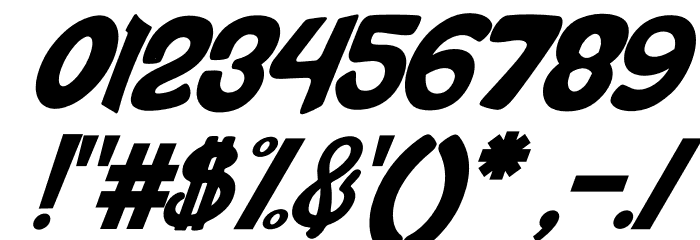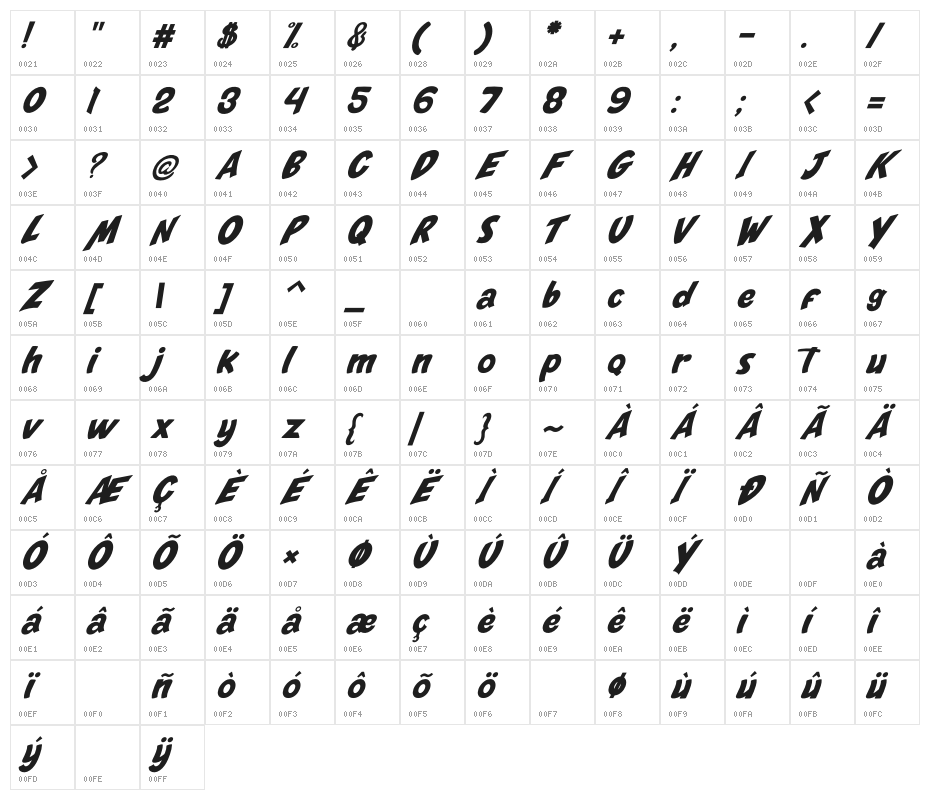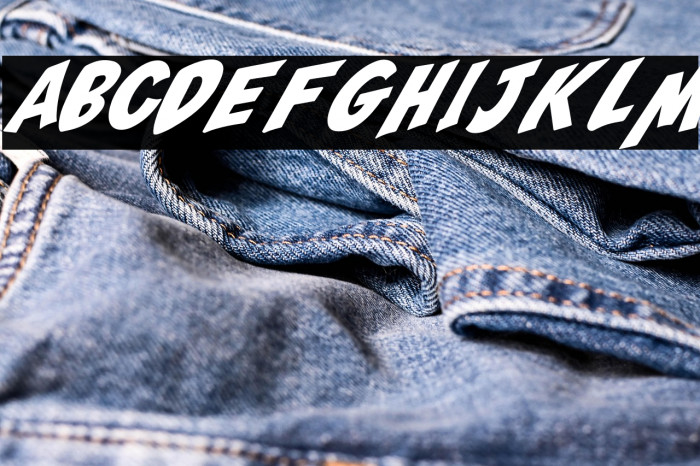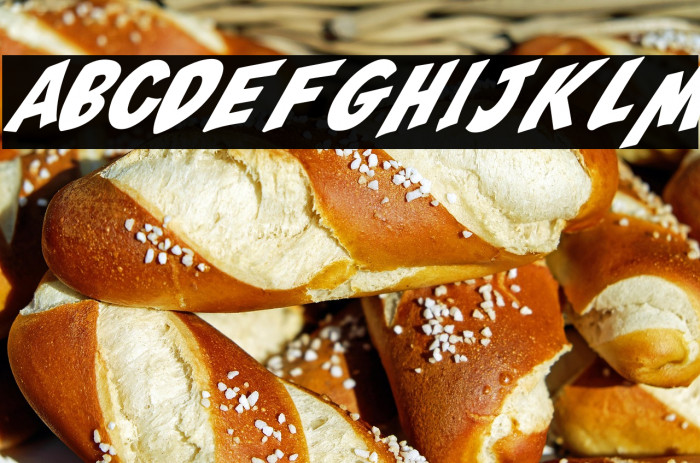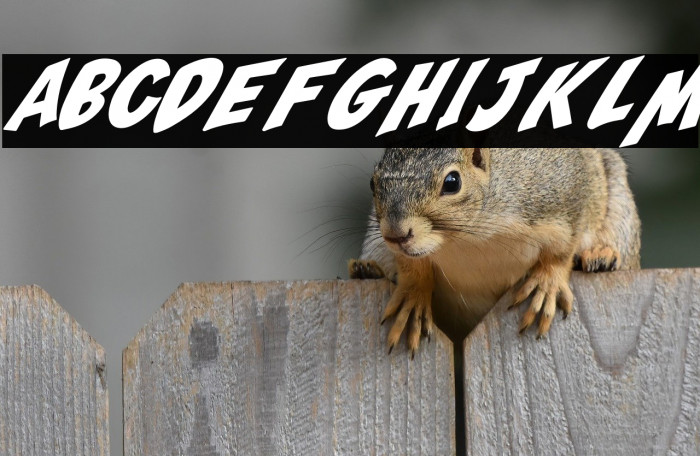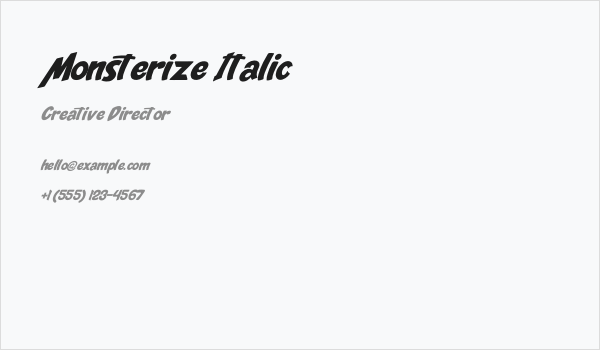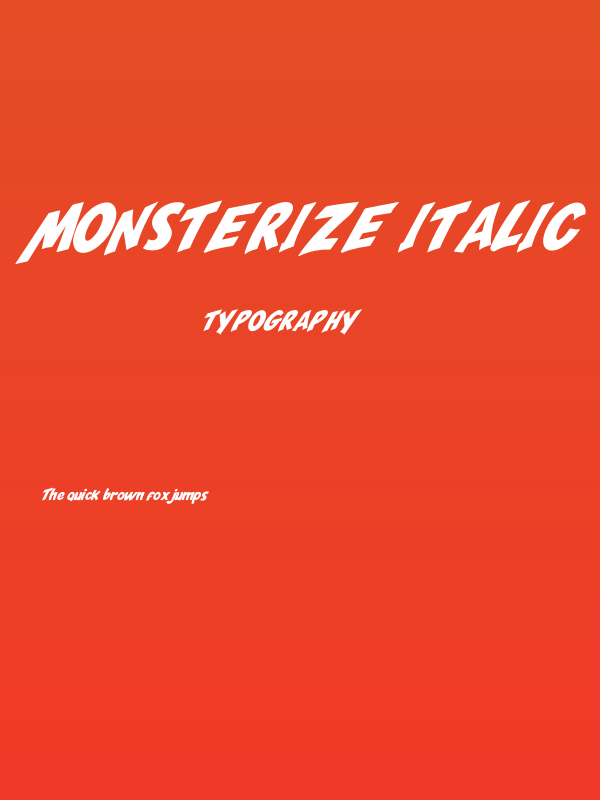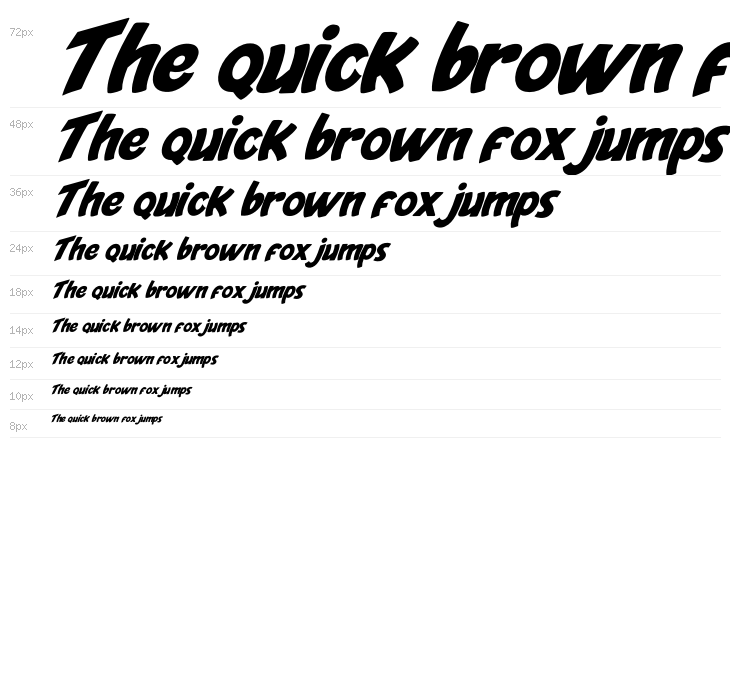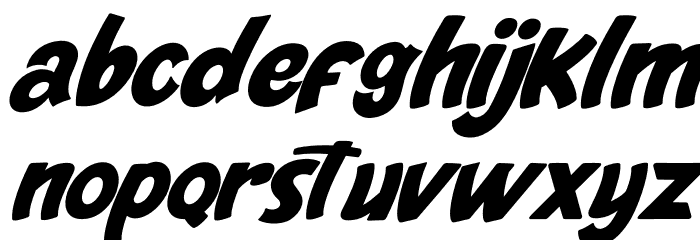
Monsterize Italic Font
Monsterize Italic Description
This font exhibits a bold and dynamic style with a strong italic slant, giving it a sense of motion and energy. The characters are thick and robust, with rounded edges that soften the overall appearance. The uppercase and lowercase letters maintain a consistent weight, contributing to a cohesive look. The numerals and special characters are equally bold, ensuring readability and impact. The font's playful yet assertive nature makes it suitable for attention-grabbing designs. Its exaggerated slant and thick strokes make it stand out, while the rounded forms add a touch of friendliness.
| Proposed Projects | Ideal for posters, logos, and branding materials that require a bold and energetic presence. |